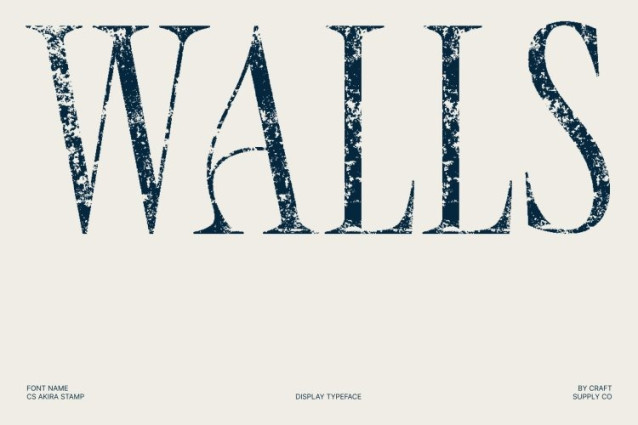
CS Akira Stamp Font
CS Akira Stamp Font This is a modern serif typeface built on clean lines, balanced proportions, and understated sophistication. Its smooth, confident letterforms create an elegant visual presence without excess ornamentation. Enhanced by a subtle stamp effect, the font gains depth and character while maintaining its minimalist clarity.
Timeless Elegance with a Contemporary Stamp Touch
Rooted in classic serif tradition, this font introduces a modern sensibility through crisp details and refined geometry. The stamped texture adds a gentle vintage nuance, blending heritage charm with contemporary elegance. This balance makes the font feel timeless, stylish, and visually distinctive.
Clear Readability with Expressive Character
Careful spacing and smooth stroke modulation ensure excellent legibility across various sizes and applications. The stamped finish introduces organic imperfections that add personality without sacrificing clarity, allowing the font to perform beautifully in both headlines and refined text settings.
Perfect for Premium and Creative Visual Projects
Ideal for editorial layouts, fashion branding, luxury packaging, logos, and digital campaigns, this font elevates designs with its poised and textured elegance. It is a versatile choice for designers seeking a serif font that communicates refinement, confidence, and subtle vintage character.